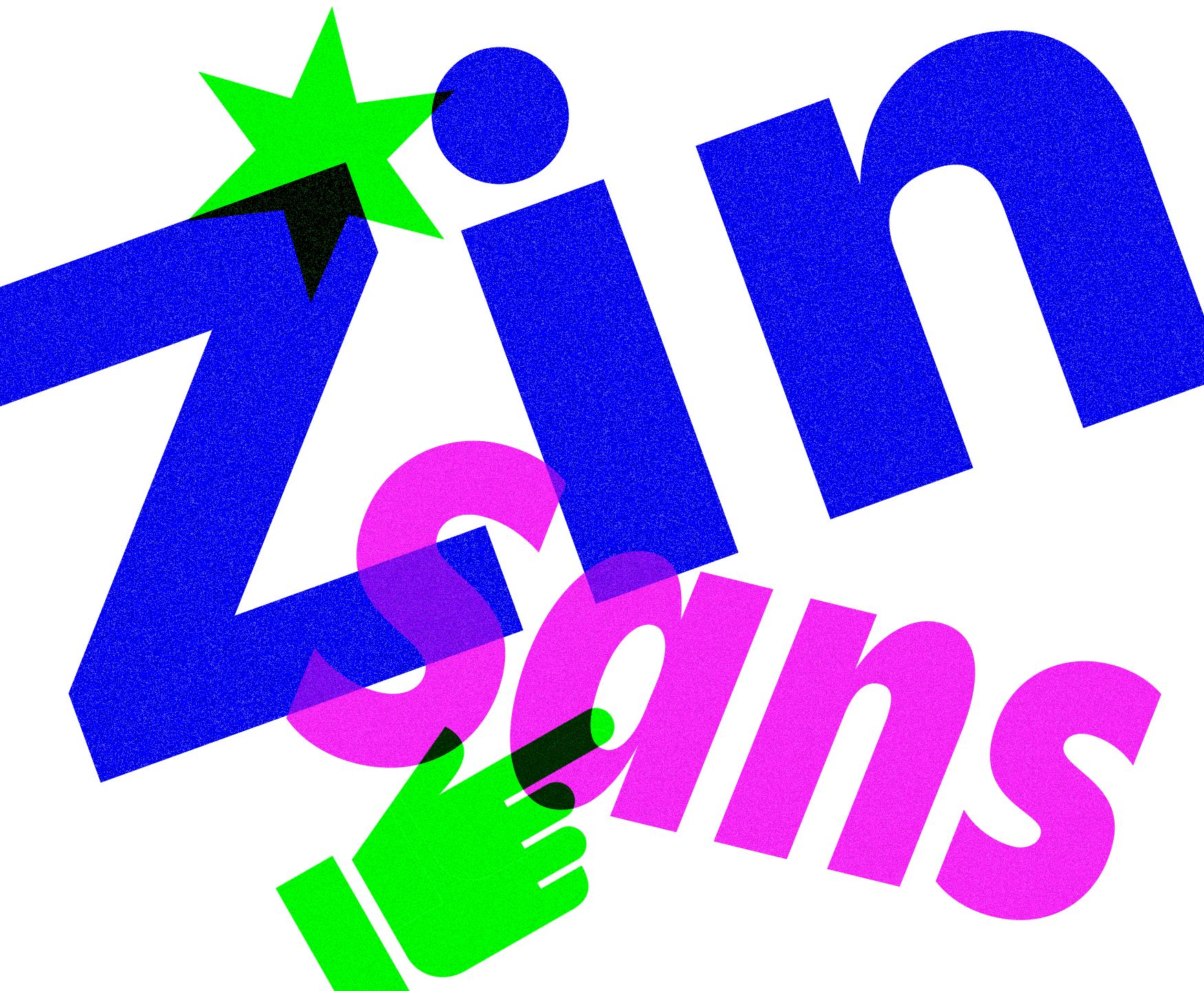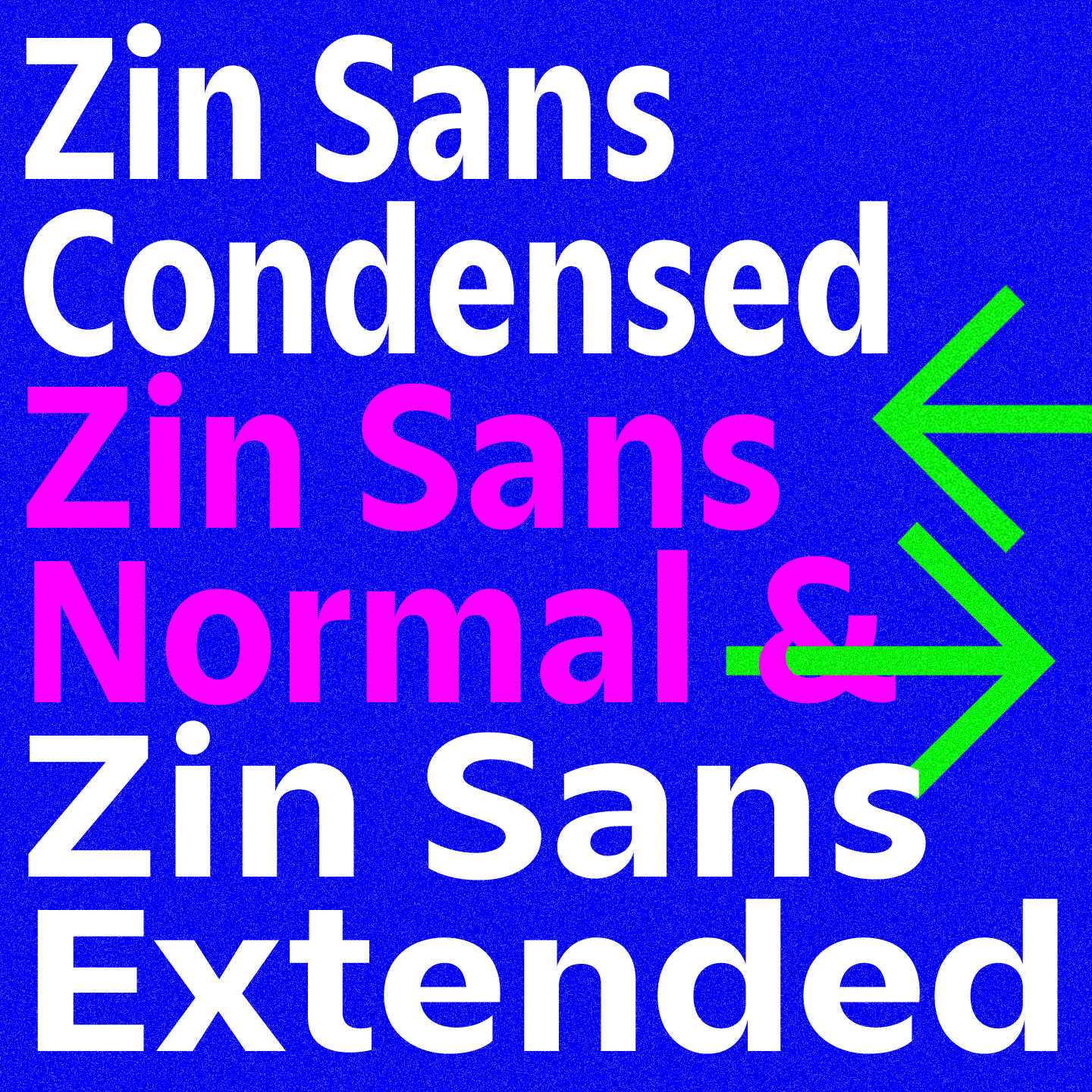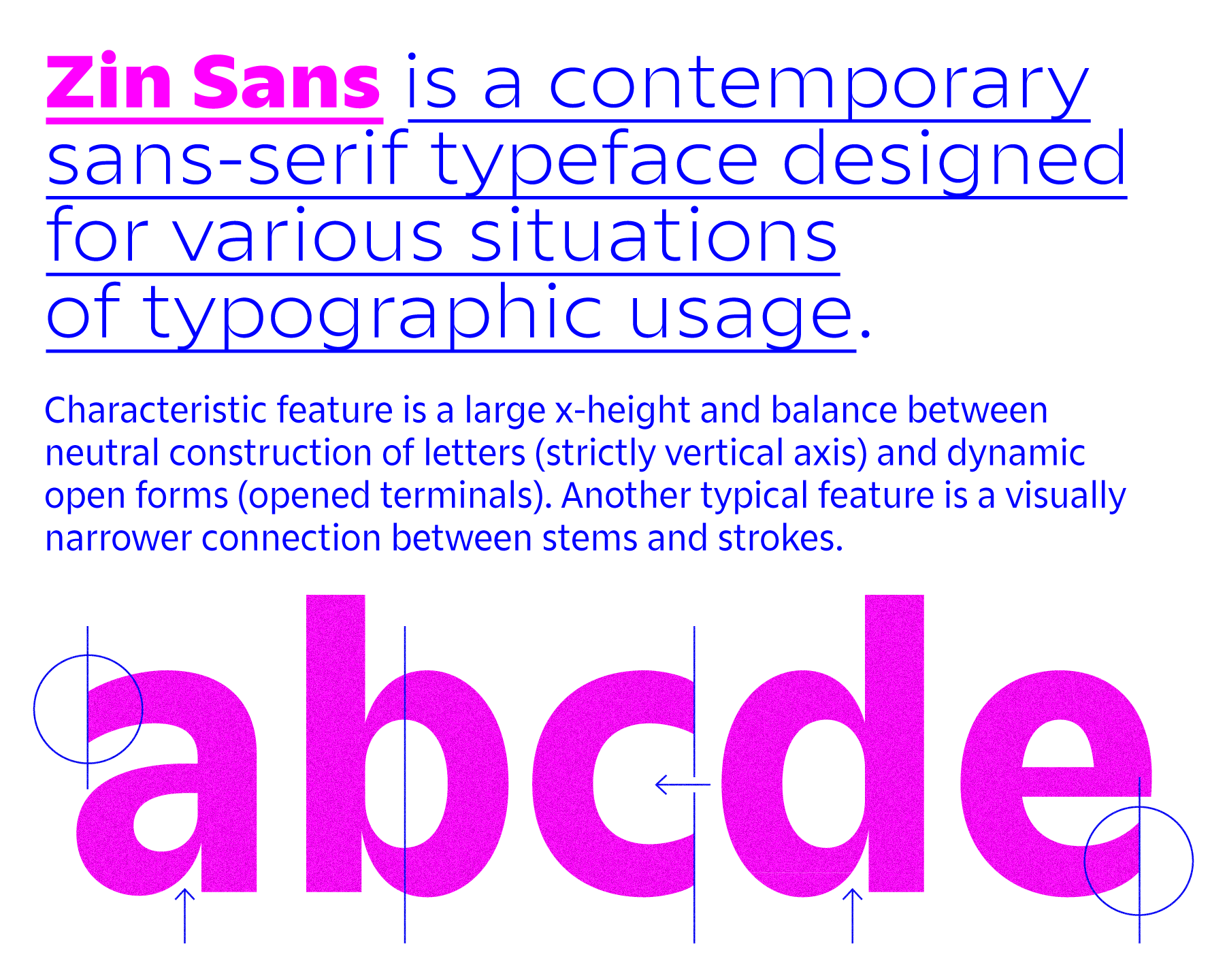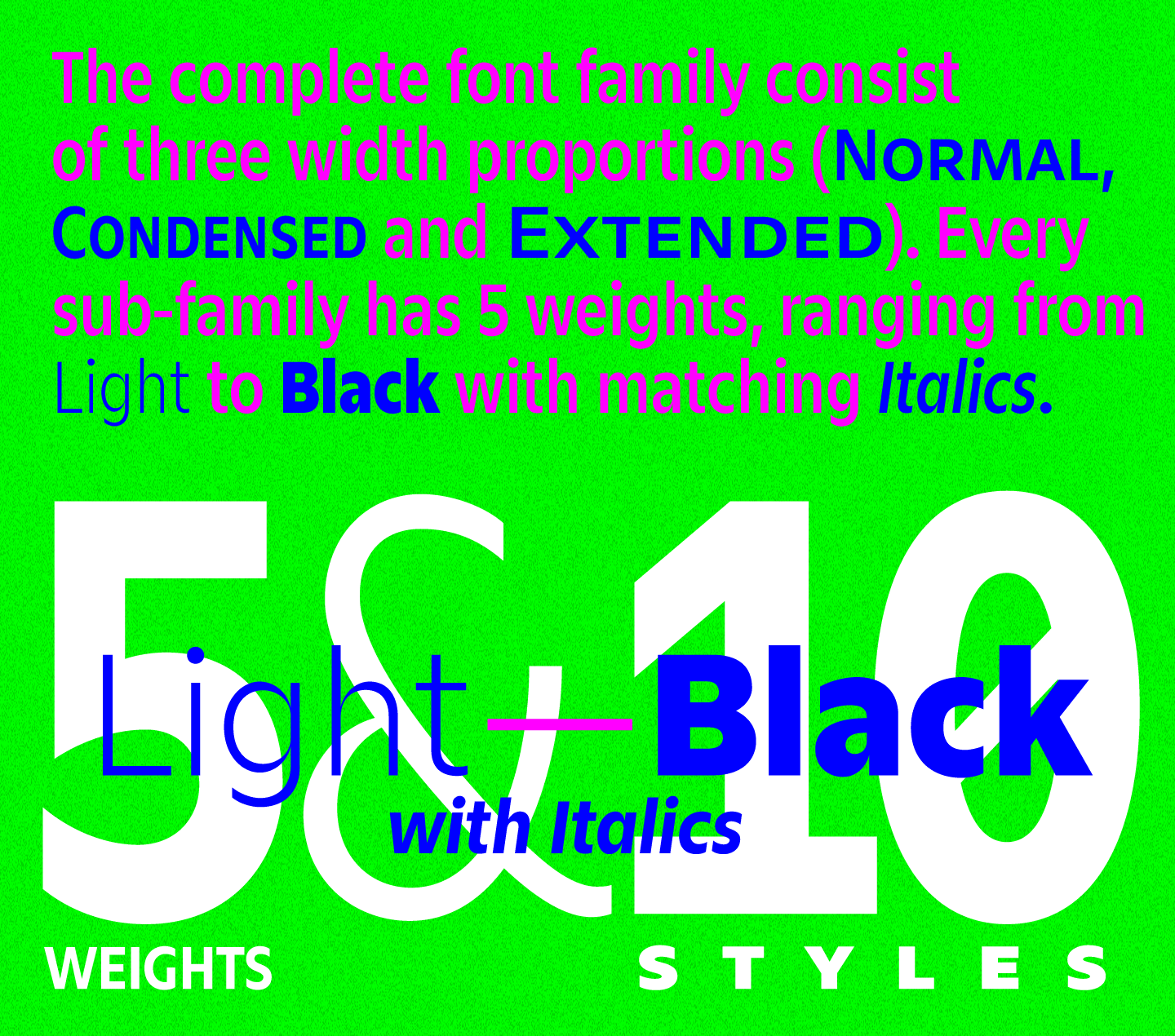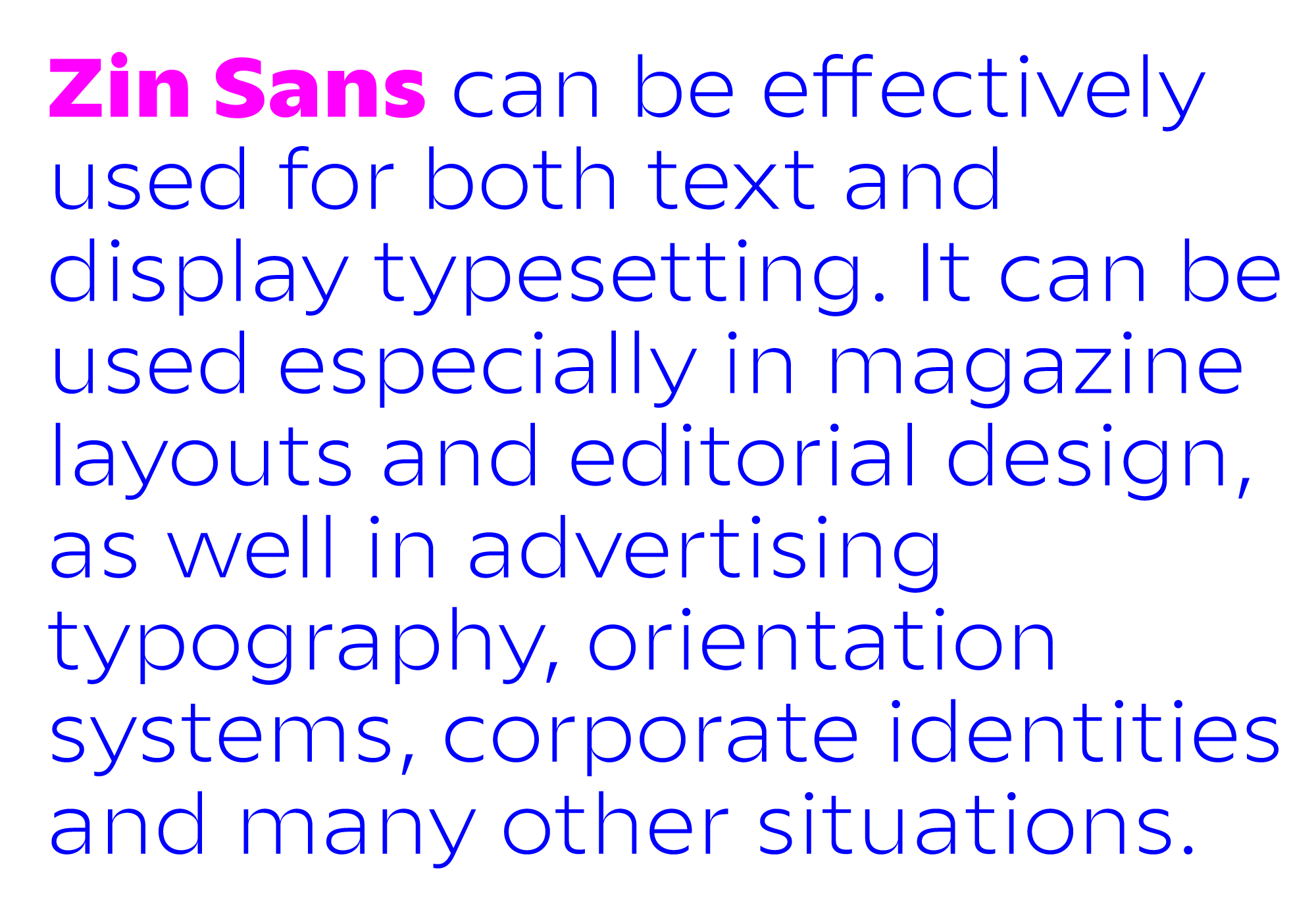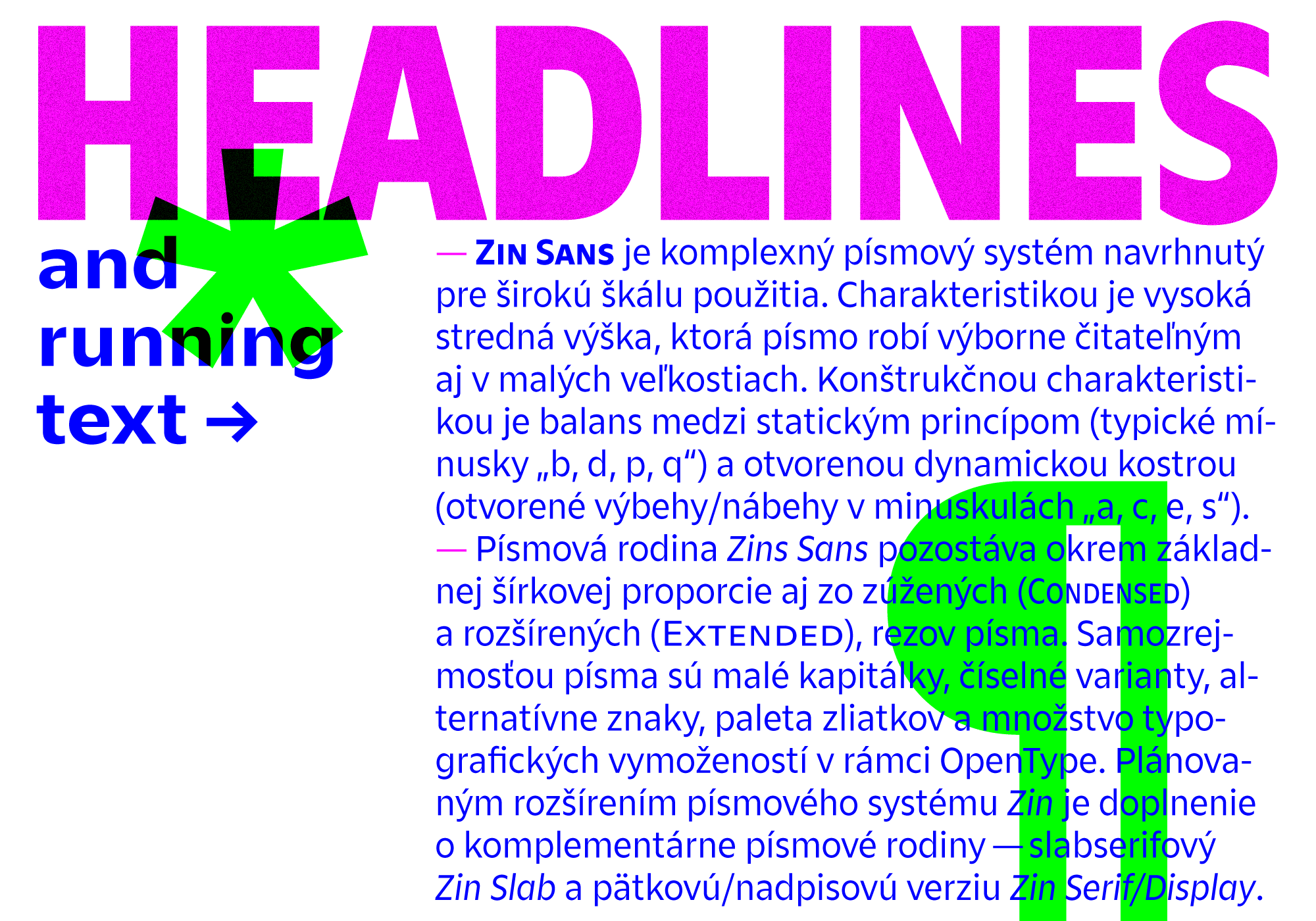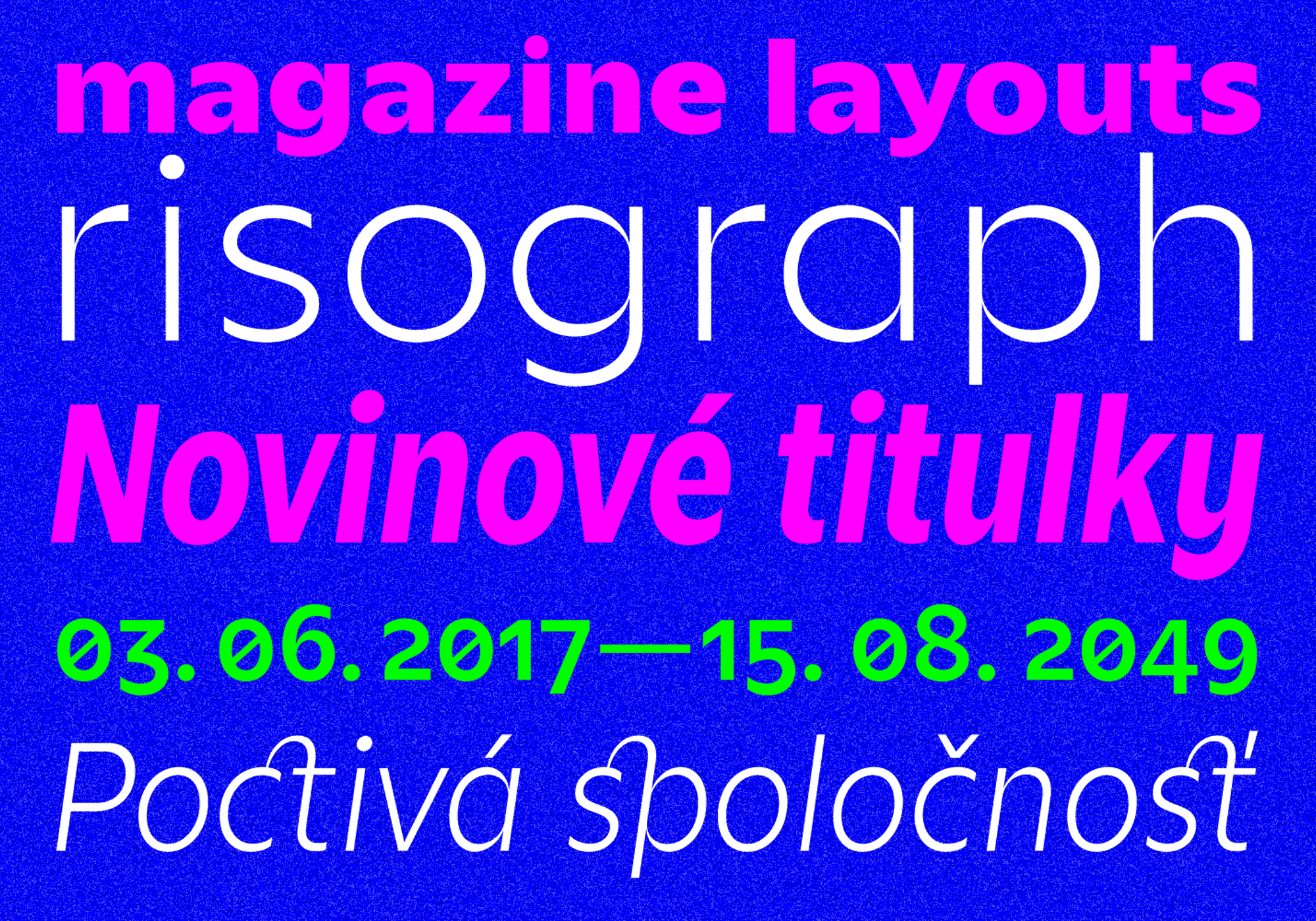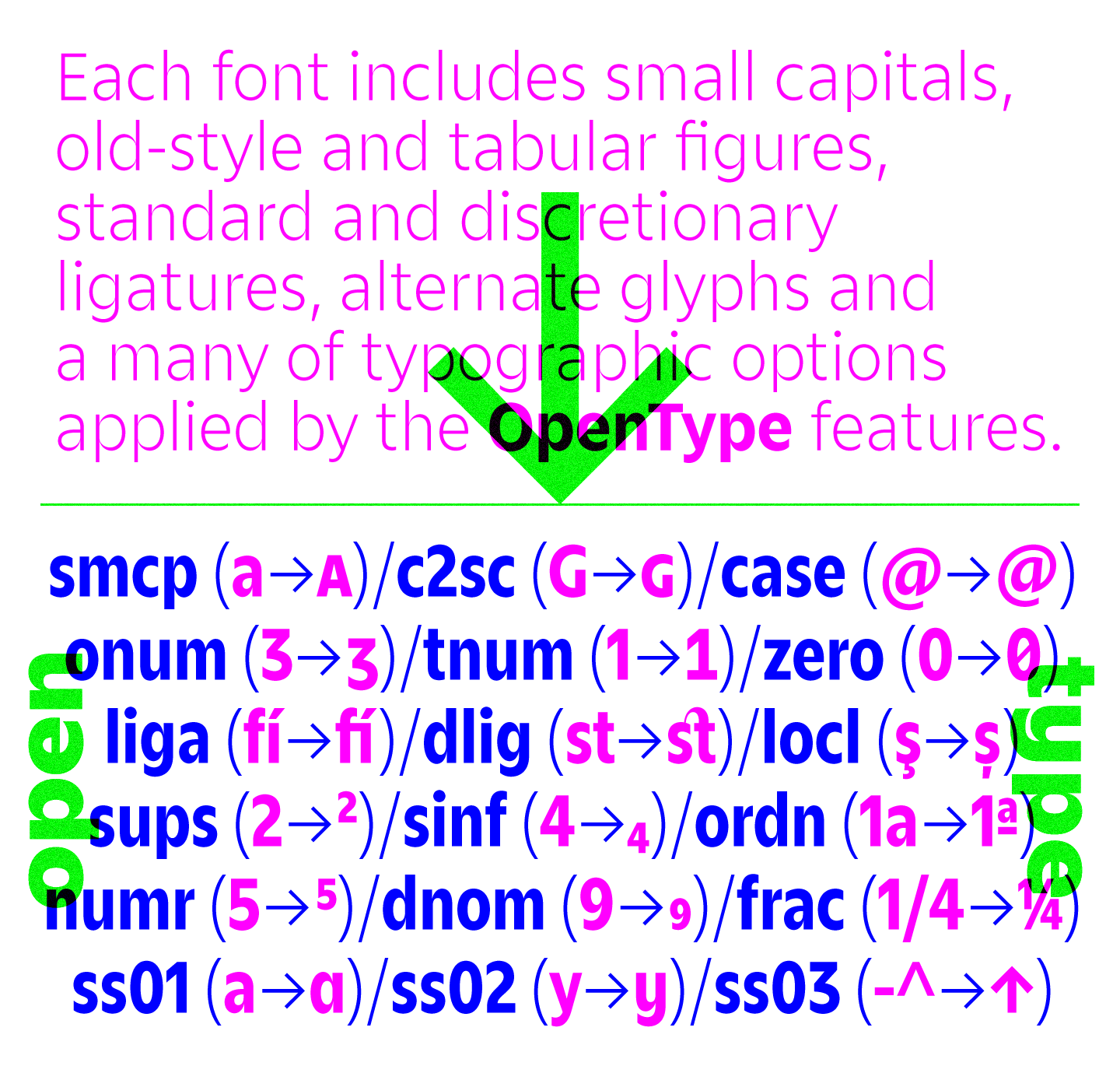
Zin Sans
Zin Sans is a contemporary typeface designed for various situations of typographic usage. Characteristic feature is a large x-height and balance between neutral construction of letters (strictly vertical axis) and dynamic open forms (opened terminals). Another typical feature is a visually narrower connection between stems and strokes. The complete font family consist of three width proportions (Normal, Condensed and Extended). Every sub-family has 5 weights, ranging from Light to Black with matching Italics. Each font includes small capitals, old-style and tabular figures, standard and discretionary ligatures, alternate glyphs and a many of typographic options applied by the Opentype features. Zin Sans can be effectively used for both text and display typesetting. It can be used especially in magazine layouts and editorial design, as well in advertising typography, orientation systems, corporate identities and many other situations. Zin Sans is a member of the Zin super family, which also includes Zin Slab, Zin Serif and Zin Display fonts.